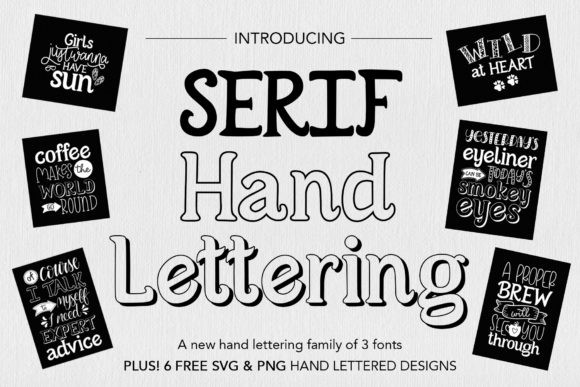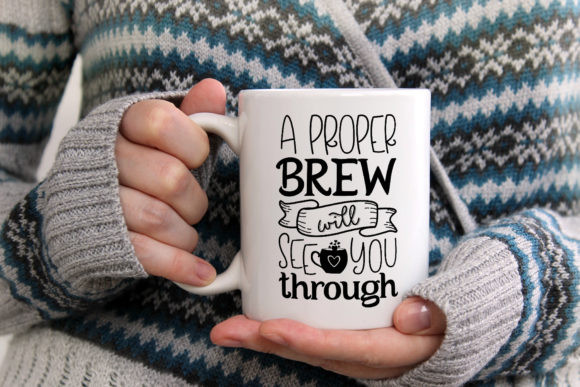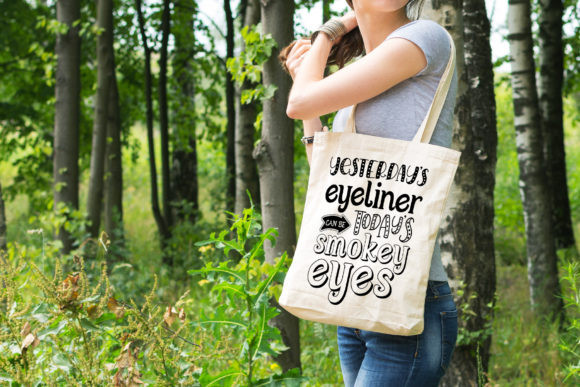
Serif Font
Serif is an elegant and neat serif font. It can easily be matched to an incredibly large set of projects, so add it to your creative ideas and notice how it makes them stand out!